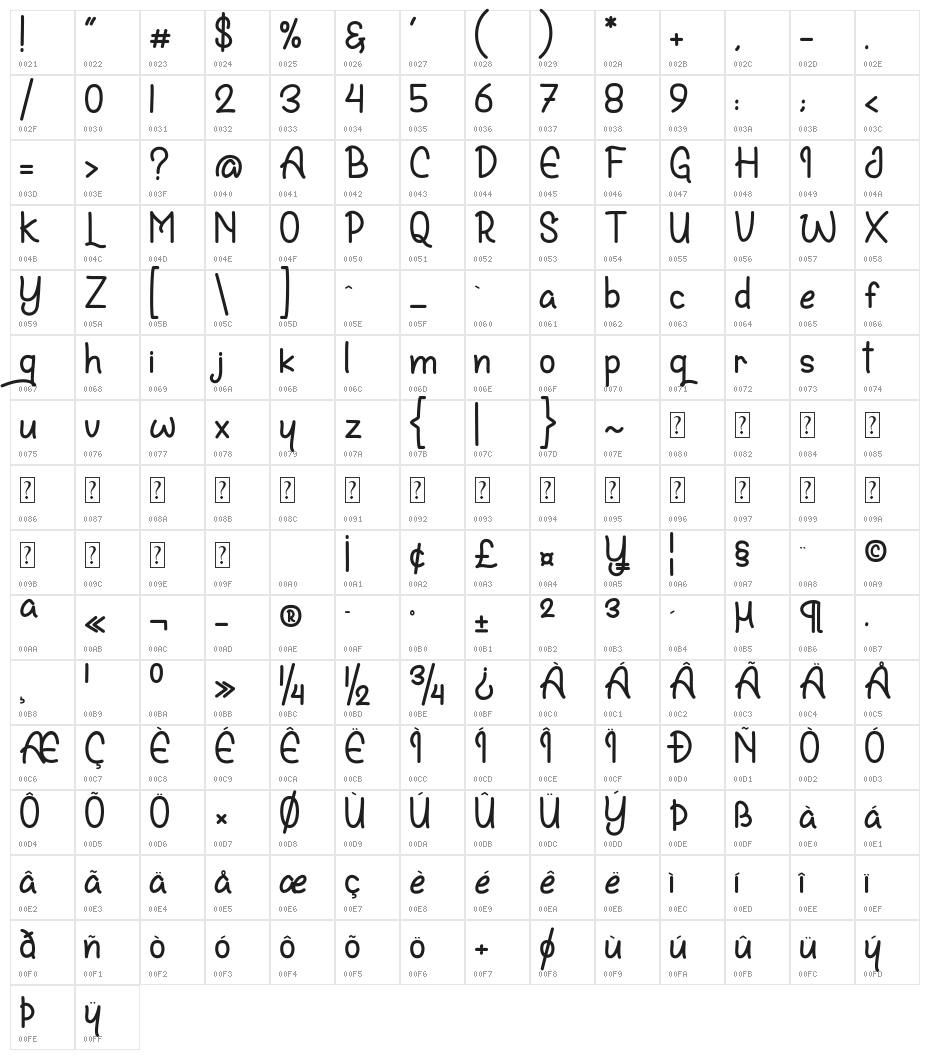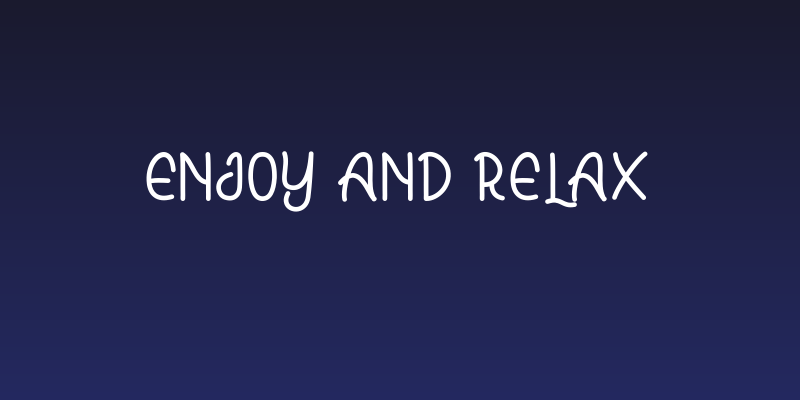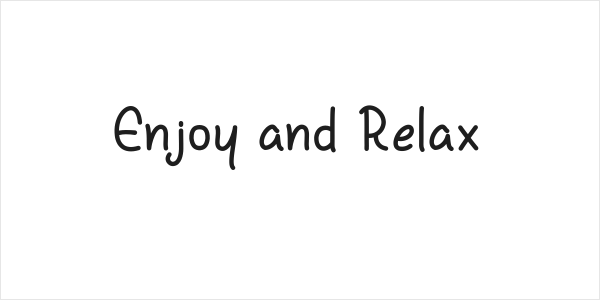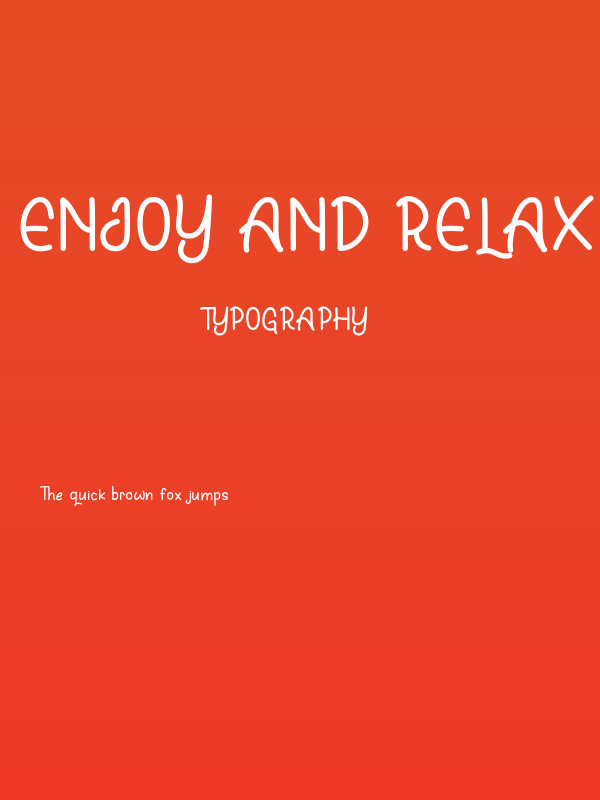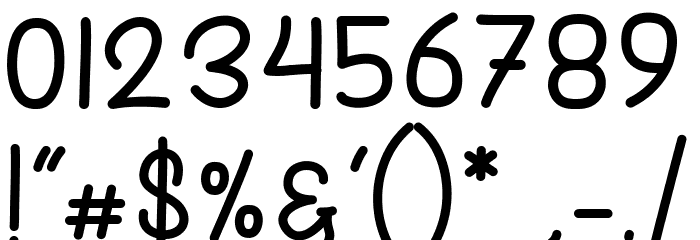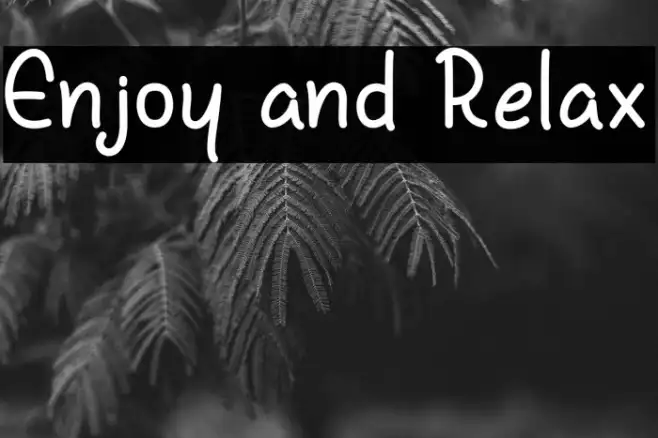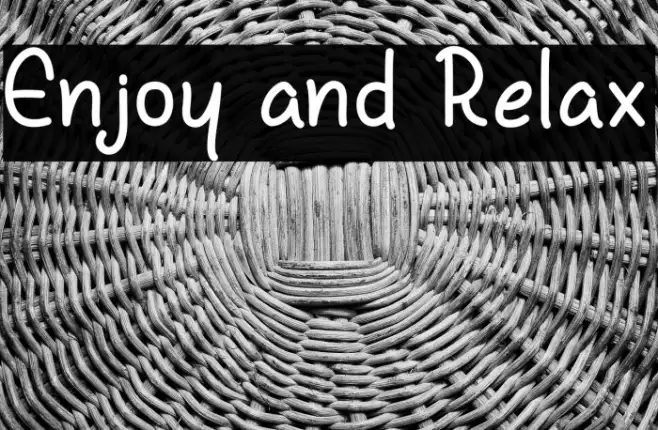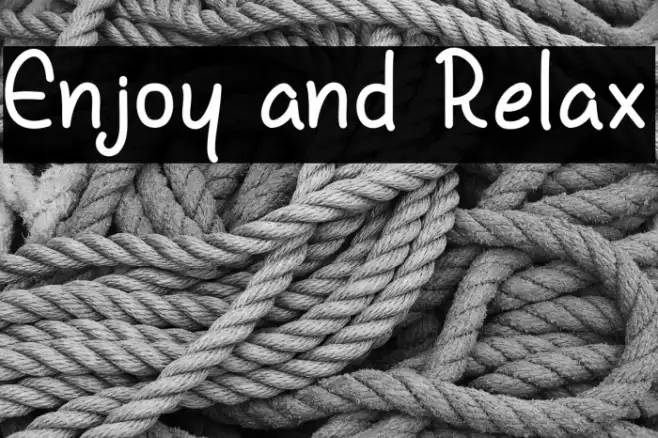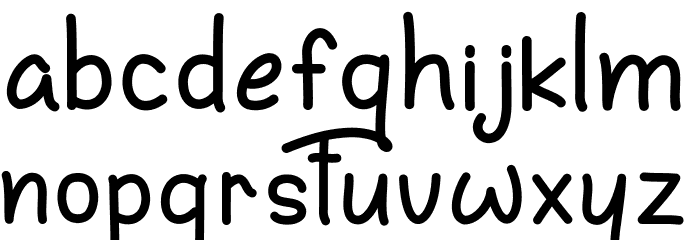
Enjoy and Relax Font
Enjoy and Relax Description
This playful and whimsical font features a handwritten style with smooth, rounded edges and a casual flow. The characters are slightly irregular, adding a personal touch that mimics natural handwriting. The uppercase letters are bold and prominent, while the lowercase letters maintain a consistent flow with a slightly smaller size. Numbers and special characters are designed to match the playful aesthetic, making them ideal for creative projects. The font's overall appearance is friendly and approachable, perfect for conveying a sense of fun and relaxation.
| Proposed Projects | Ideal for greeting cards, children's books, playful branding, and casual invitations. |